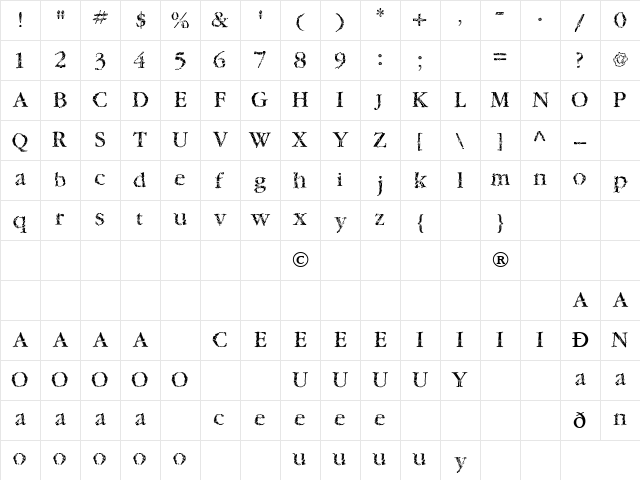
TwyliteZone Book Free Font
TwyliteZone Book
TwyliteZone Family
Complete TwyliteZone Book glyph index. Displaying only characters natively supported by TwyliteZone Book font.
Design Context for TwyliteZone
TwyliteZone is a composed and adaptable typeface that performs quietly and consistently across a wide range of design contexts.